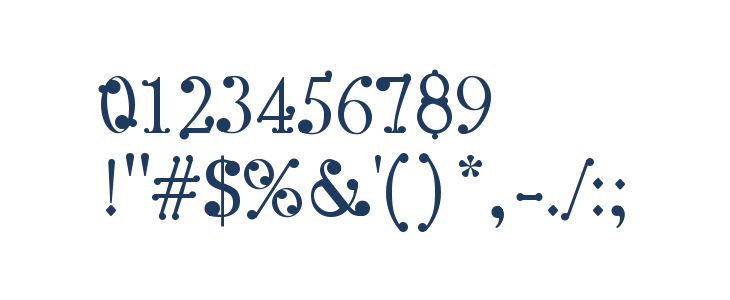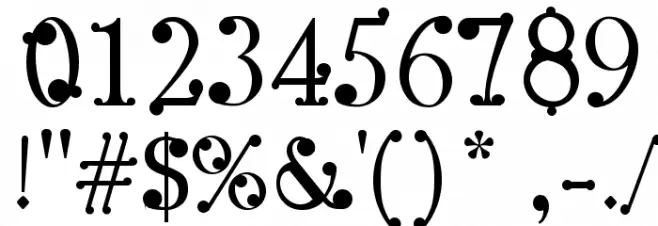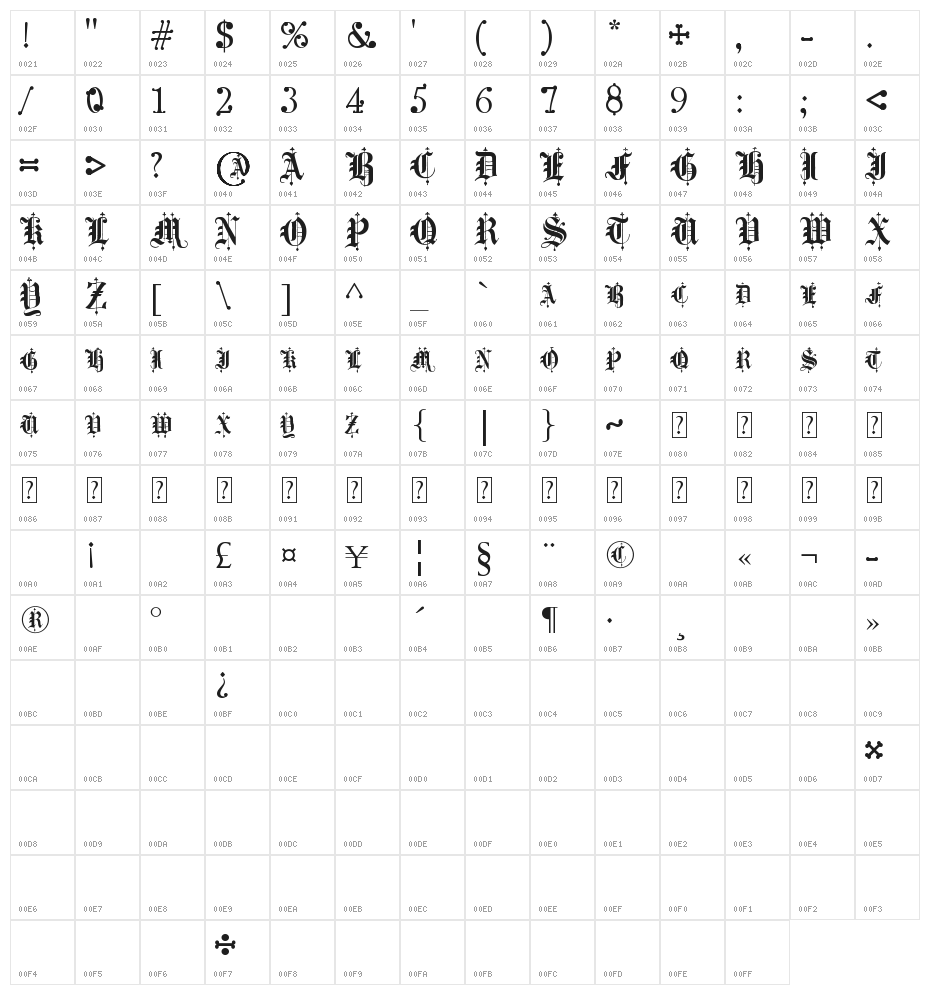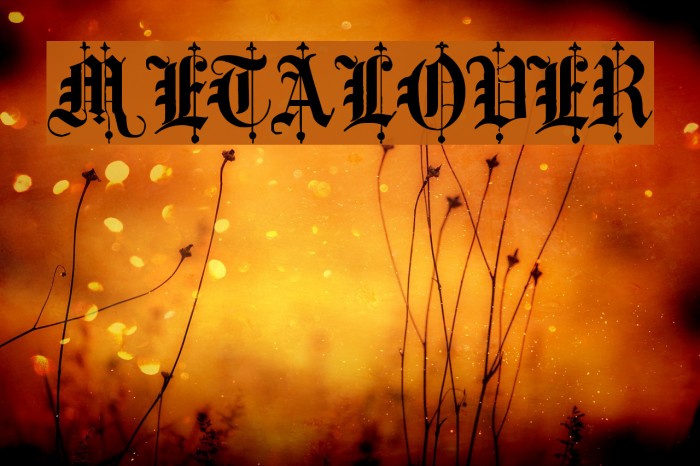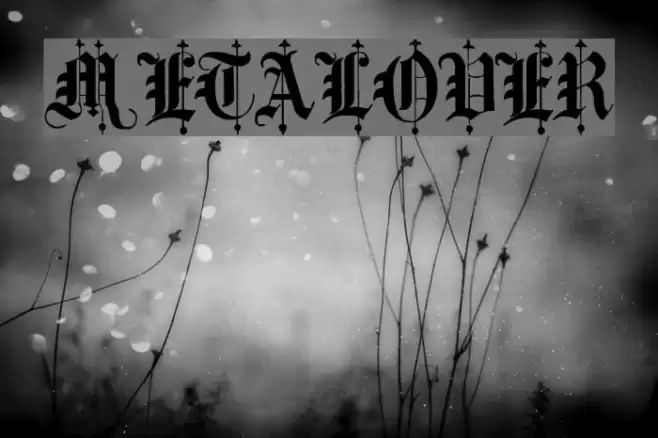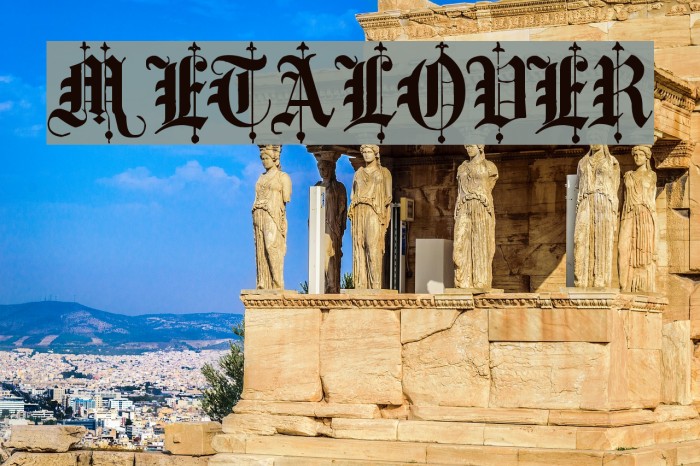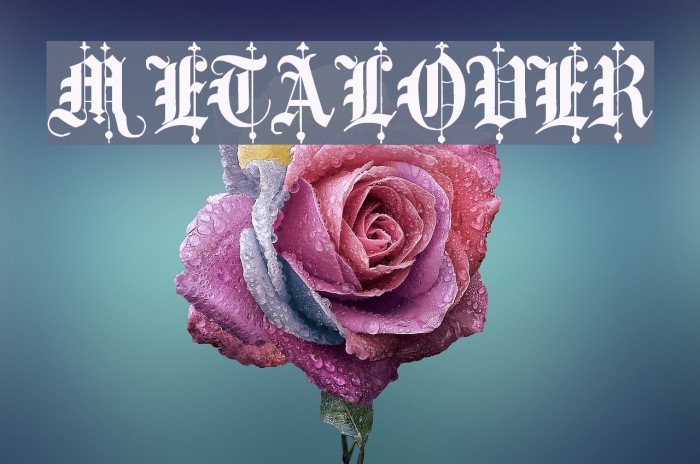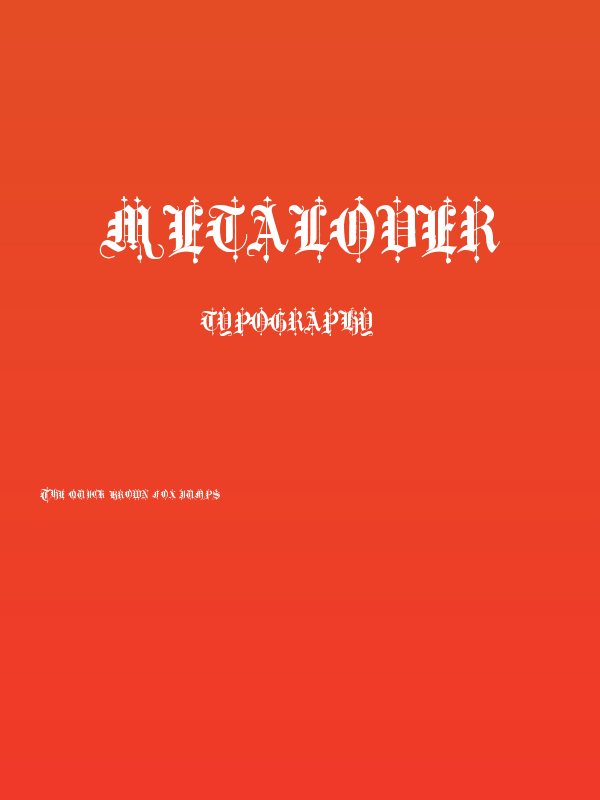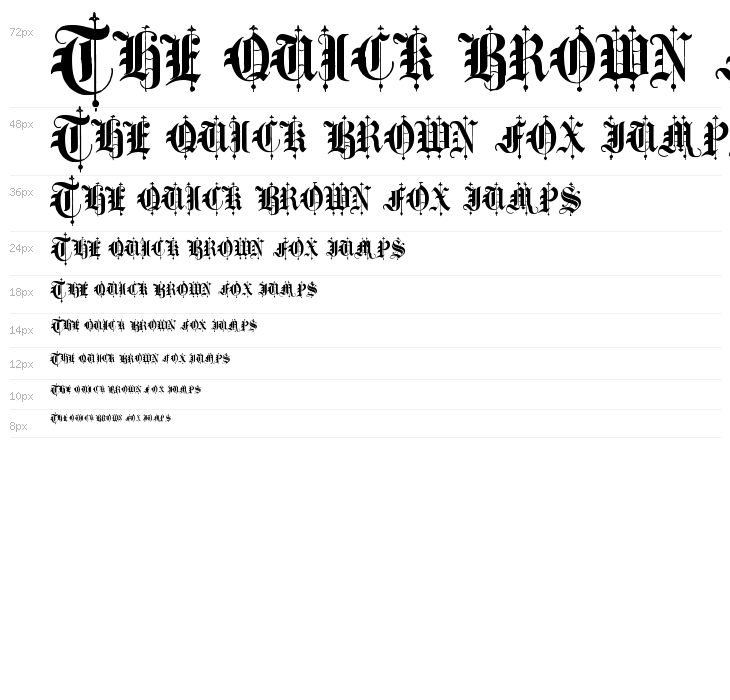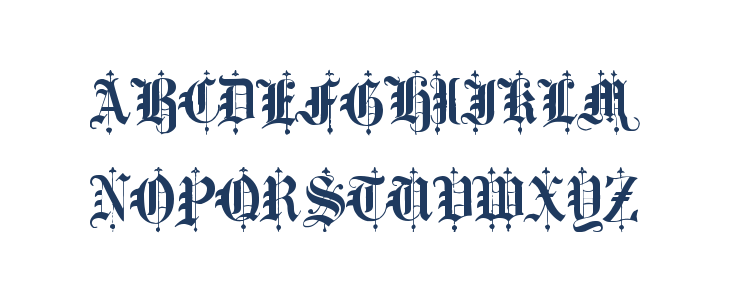
metalover Font
This font embodies a traditional blackletter style, characterized by its ornate and intricate design. The letters are embellished with sharp, pointed serifs and elaborate flourishes, giving it a distinctly medieval and gothic appearance. The uppercase letters are particularly decorative, with exaggerated curves and angles that create a dramatic and bold look. The lowercase letters maintain the same level of detail, ensuring consistency throughout the typeface. The numerals are equally stylized, featuring unique shapes that complement the overall aesthetic. This font is perfect for projects that require a historical or vintage touch, such as invitations, certificates, or branding for products that wish to convey a sense of tradition and elegance.
Overall StyleVintage
Use CaseLogos, Headlines, Decorative text
Proposed ProjectsIdeal for historical documents, vintage-themed designs, gothic-inspired branding, and decorative invitations.